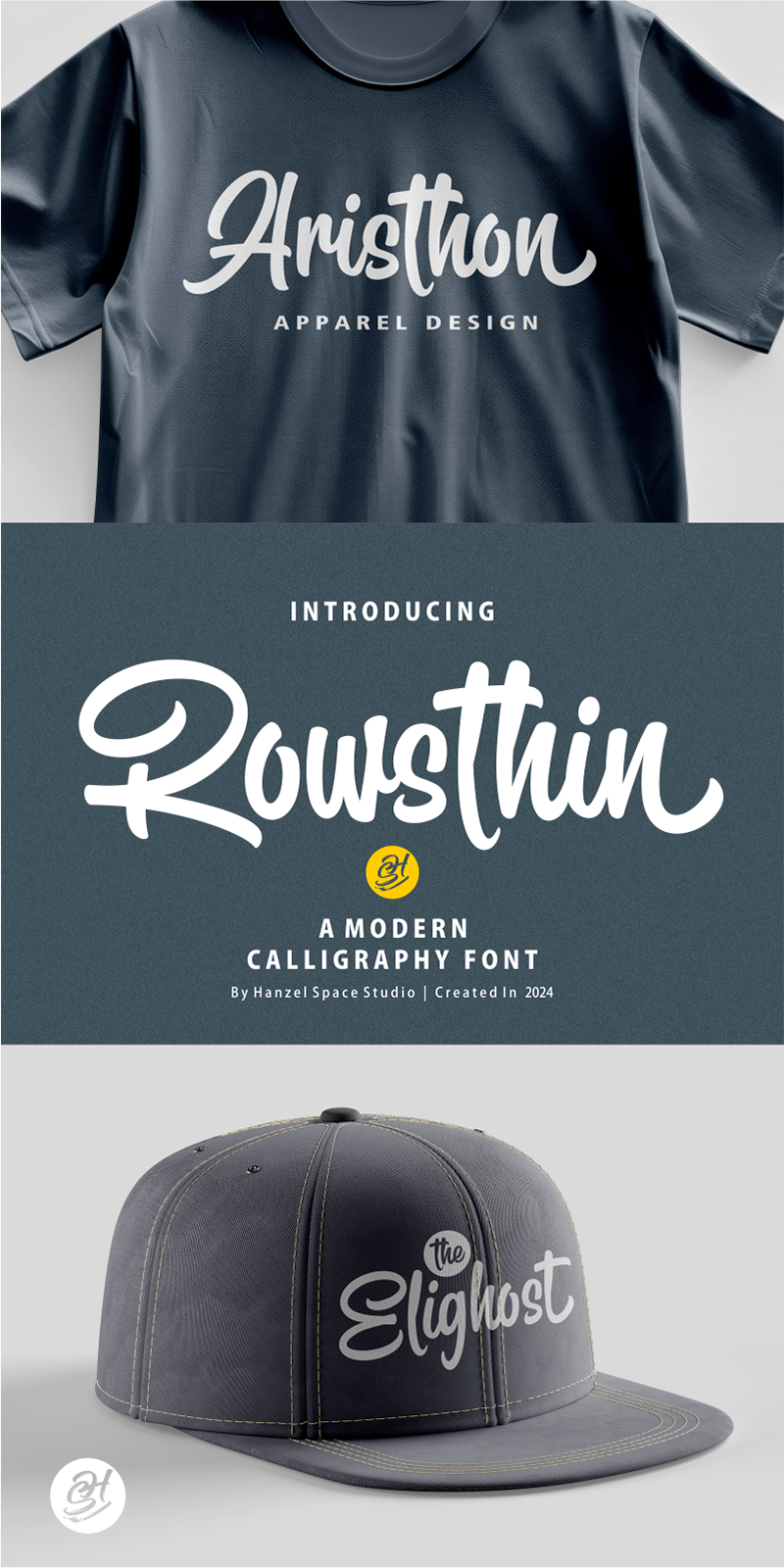
Are you looking for a modern trandy script font? Do you want to create something that stands out and inspires
endless creativity, imagination and fun? What are you waiting for, we will provide the best choice for you.
Introducing Rowsthin Script Font. I created this font with a modern character style, has a different font anatomy character and looks attractive. This font looks elegant, cool, and unique.
This font was created to help you designing logotype or lettering style logo for your Brand or your clients, and you also can use it for designing all of the graphic stuff such as badge, sign, packaging, headline, title, T-shirt/apparel,bPoster, etc.
Rowsthin was designed for personal characters such as strong, confidence, dynamic, readable, Energic, dynamic, etc.
– Full Set of standard alphabet and punctuation
– Multilingual Characters (ÁÂÄÀÅÃÆÇÐÉÊËÈÍÎÏÌÑÓÔÖÒØÕÚÛÜÙẂŴẄẀÝŶŸỲ áâäàåãæçðéêëèíîïìñóôöòøõœúûüùẃŵẅẁýŷÿỳ€£¥)